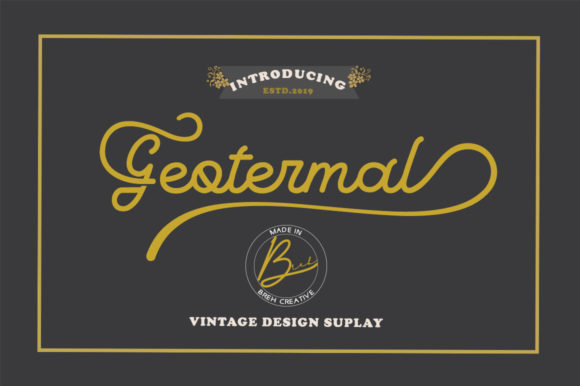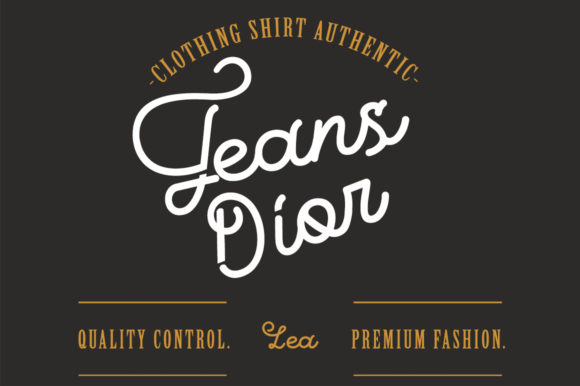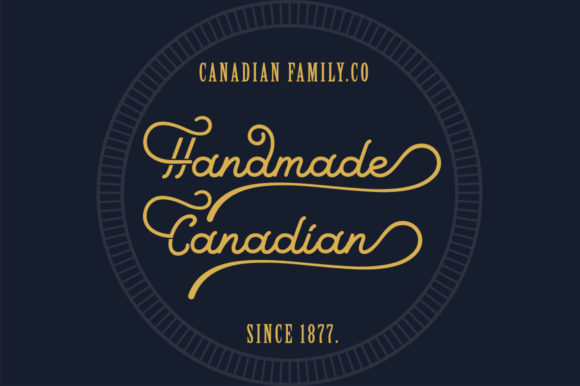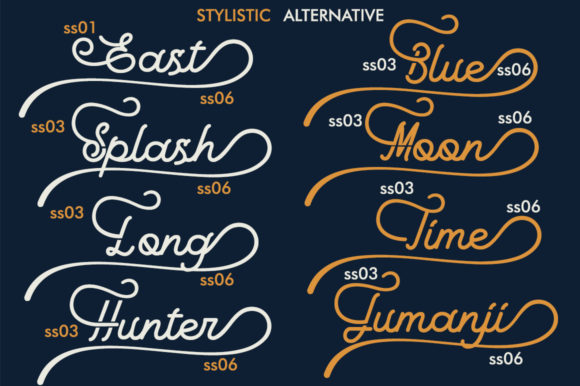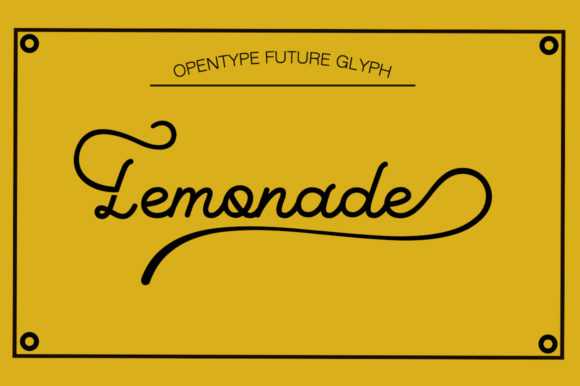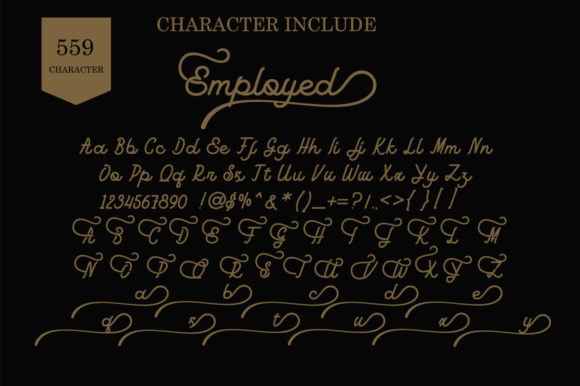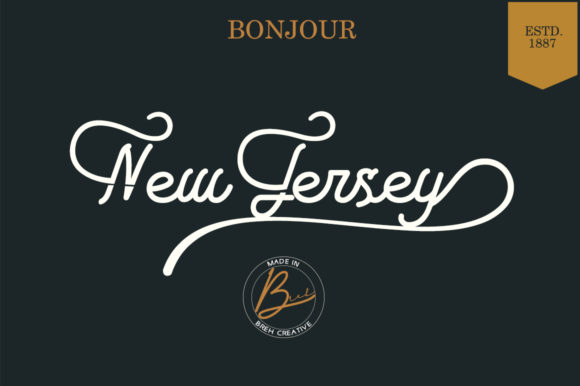
Geotermal Font
About Geotermal Font
Geotermal is a friendly vintage script font with classic style. It is perfectly suited for a wide variety of projects!